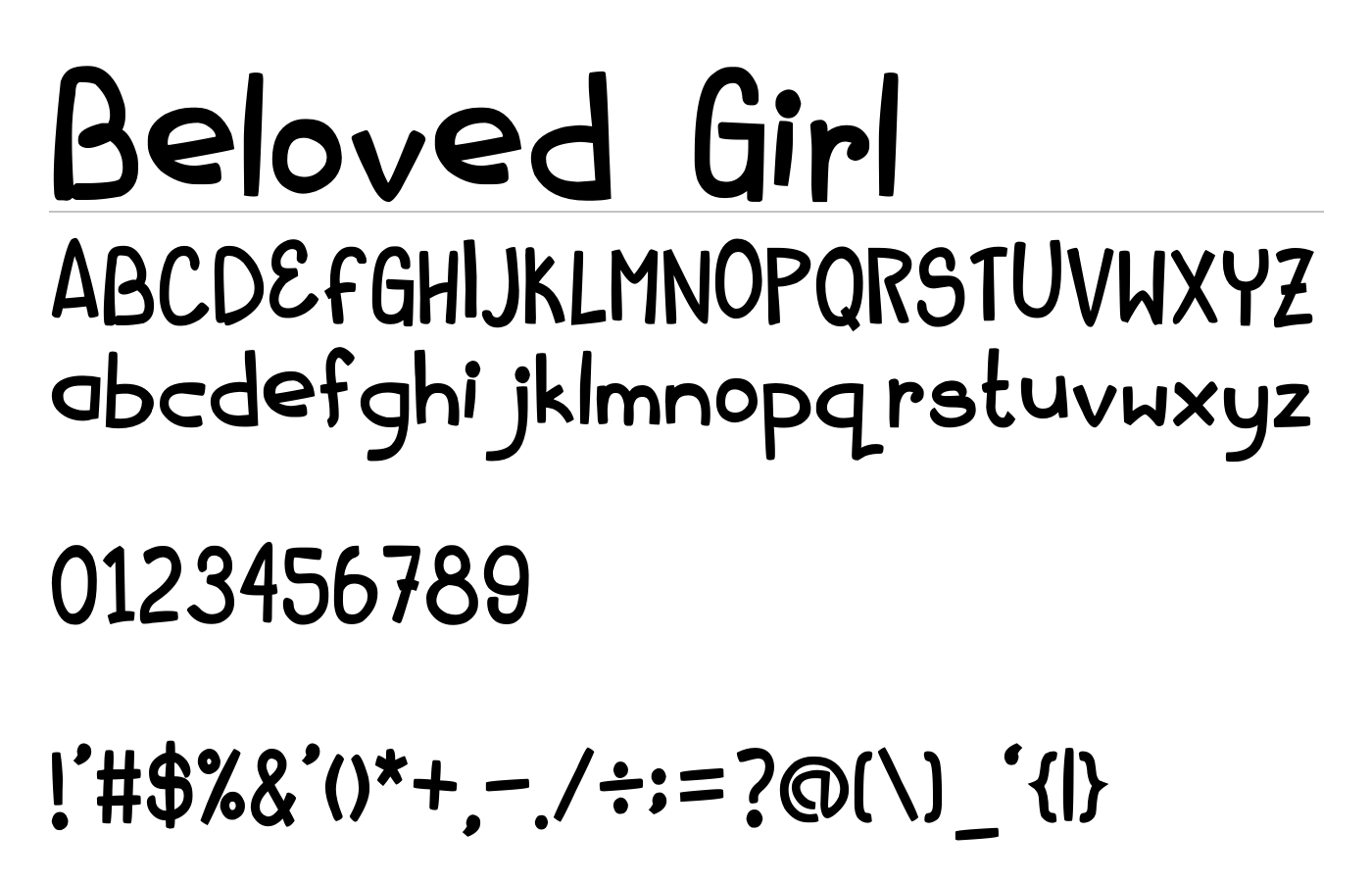
Beloved Girl is a playful, casual hand-drawn sans serif font with a friendly, informal tone. Its irregular letterforms and moderate contrast create a unique, approachable look perfect for designs aimed at children or creative, fun projects. This font works well for logos, invitations, and branding that seek a warm, personal touch.
Beloved Girl Font
About Beloved Girl Font
| Font family | Beloved Girl Font |
| Designer | Akhmad Afandhi |